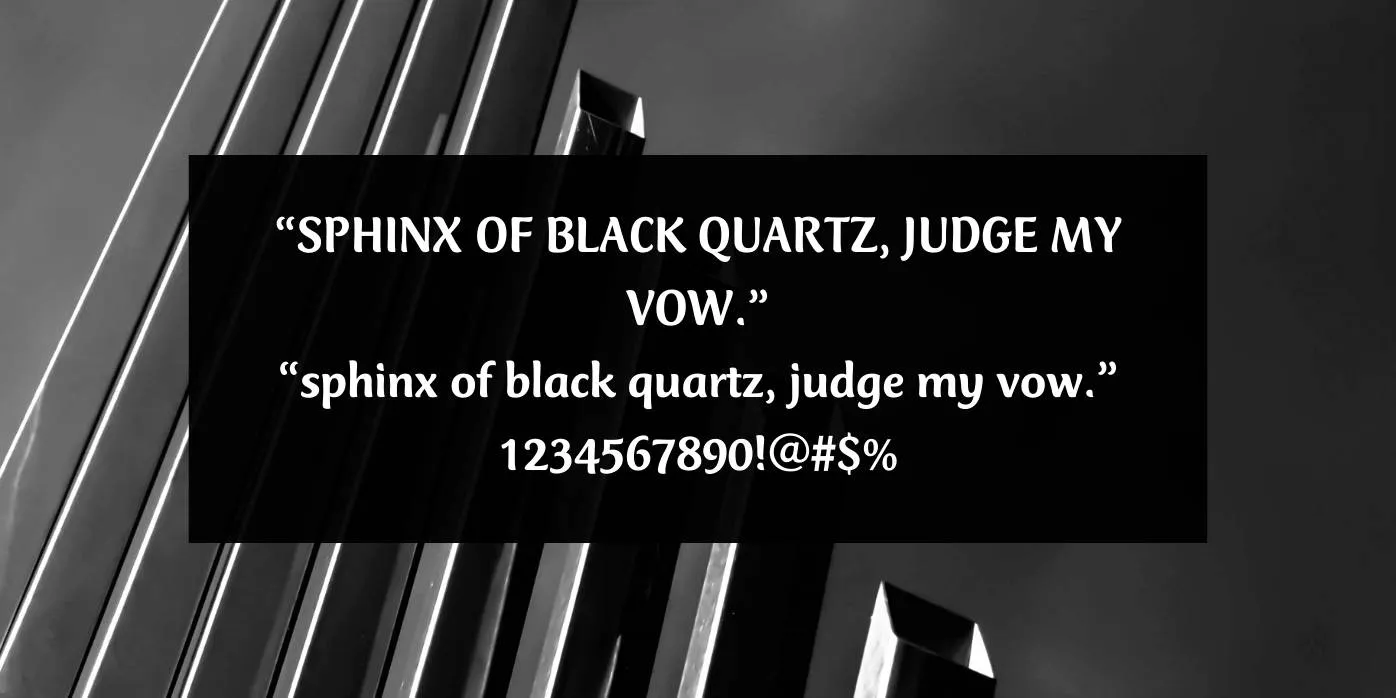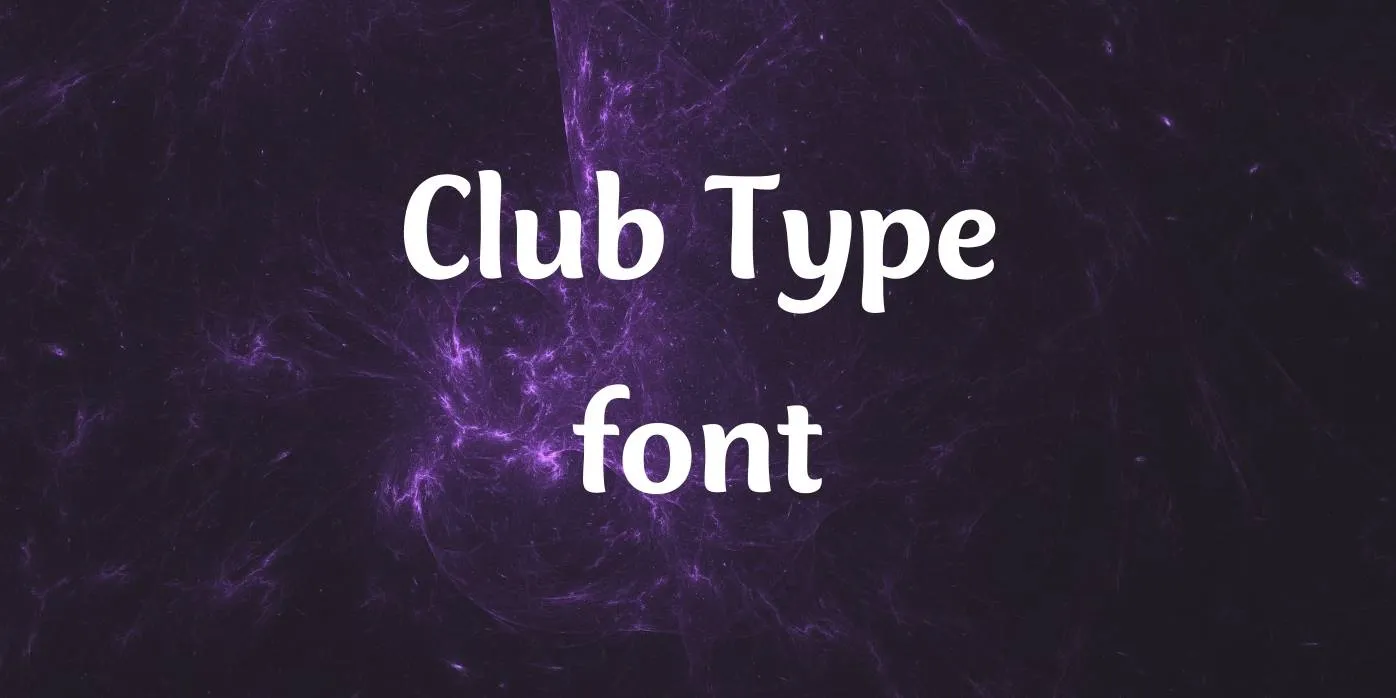
Club Type Font
In this article, we introduce a classic typeface known as Club Type Font. This typeface belongs to the fancy font family. This typeface was developed by Adrian Williams in 2002. This typeface is well suitable for CSS and HTML.
This typeface is perfect for creating vintage designs. It has a very strong character and can be used for both headline and body text. This awesome font family includes four different styles: Regular, Italic, Bold, and Bold Italic. The copy-and-paste function of this family is suitable for different designs.
You can also use fiesta font which is closest to this font family. This typeface includes different glyphs, such as small caps, old-style figures, fractions, ligatures, and case-sensitive forms. It also supports multiple languages. If you are looking for a vintage font with a strong character, Club Type Font is a great choice.